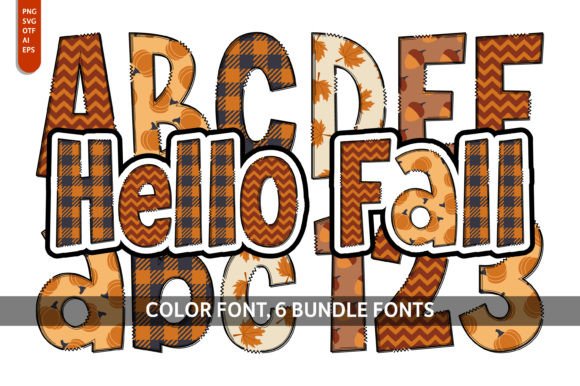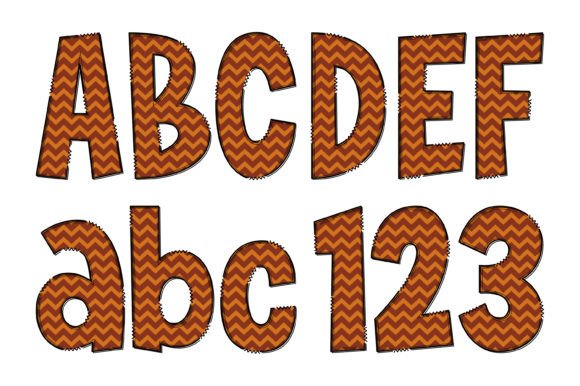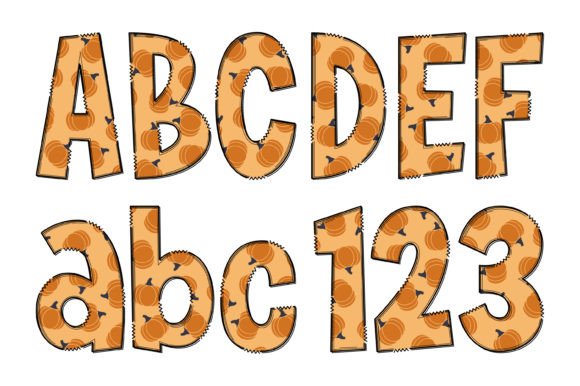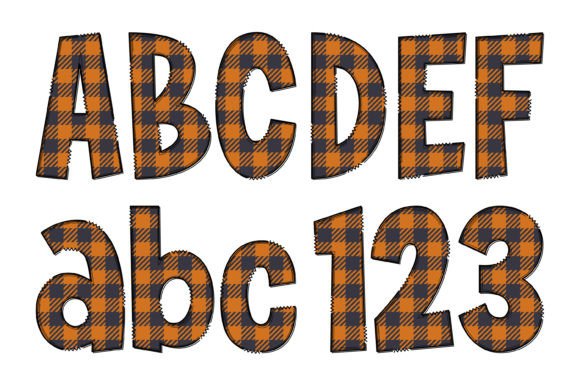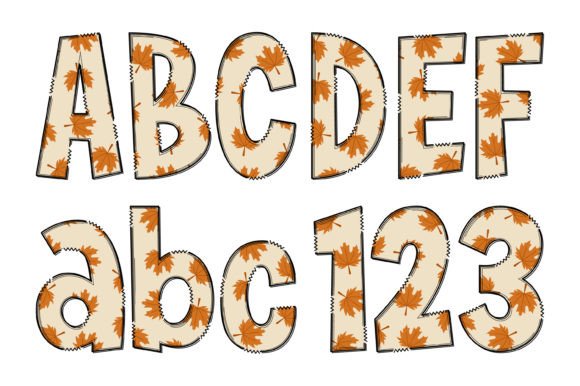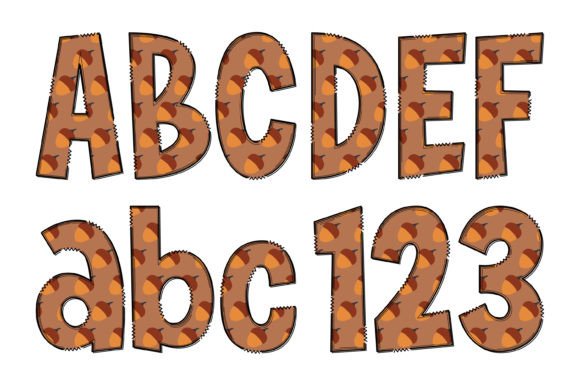
Hello Fall Collection Font
Hello Fall is a delightful and vibrant color font collection that celebrates the arrival of the autumn season. With its charming and playful design, each letter is adorned with colorful leaves, pumpkins, and other fall-themed elements. Perfect for adding a touch of whimsy and cheer to your designs, Hello Fall captures the joyful spirit of the season. Embrace the beauty of autumn with Hello Fall!